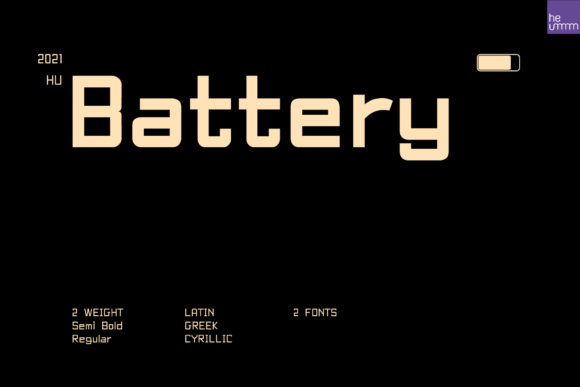
Introducing Hu Battery - The Ultimate Sans Serif Font for a Modern Aesthetic
In a world where digital communication reigns supreme, Hu Battery emerges as the ultimate sans serif font, a beacon of modernity that captivates and engages audiences. Its digital roots infuse it with a trendy vibe, while the harmonious blend of rectangular features and round edges lends it a unique character, setting it apart from the ordinary.
With Hu Battery as your font of choice, your designs will radiate a contemporary aura, captivating attention and inspiring admiration. Its clean lines and minimalist aesthetic bring a crispness and clarity to your projects, making them stand out in the digital realm. Whether you're crafting elegant logos, eye-catching headlines, or informative brochures, Hu Battery amplifies your message with its timeless appeal.
More than just a font, Hu Battery is an experience, a journey into the world of modern typography. Each letterform is a meticulously crafted masterpiece, infused with intention and purpose. The subtle curves and sharp angles dance together, creating a visual symphony that captivates the eyes and invites exploration.
As you delve into the depths of Hu Battery's versatility, you'll discover a spectrum of possibilities. From sleek and sophisticated corporate presentations to vibrant and playful social media campaigns, Hu Battery adapts seamlessly to your creative vision. Its versatility knows no bounds, allowing you to craft designs that resonate with your audience, leaving an indelible mark on their minds.
But Hu Battery is more than just aesthetically pleasing; it's a font that empowers you to convey your message with clarity and impact. Its clean lines and uncluttered design ensure that your words shine through, reaching your audience with unwavering precision. Your ideas will take center stage, amplified by the understated elegance of Hu Battery.
With Hu Battery by your side, you'll unlock a world of creative possibilities, transforming your designs into captivating masterpieces. Embrace the allure of the modern era and let Hu Battery guide you towards typographic greatness.